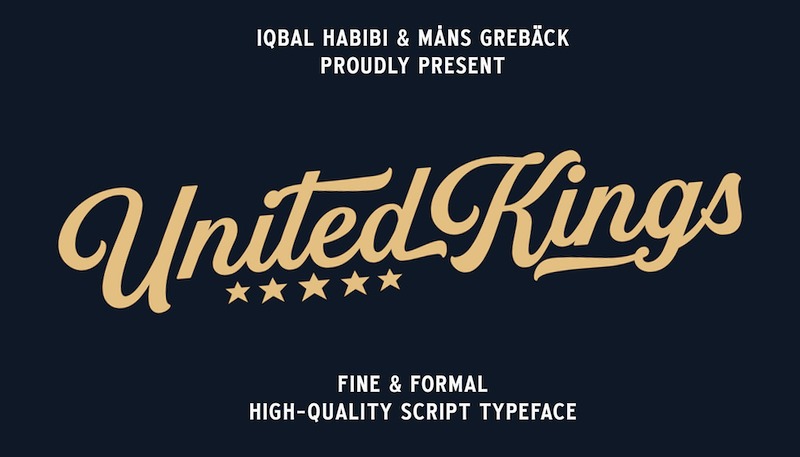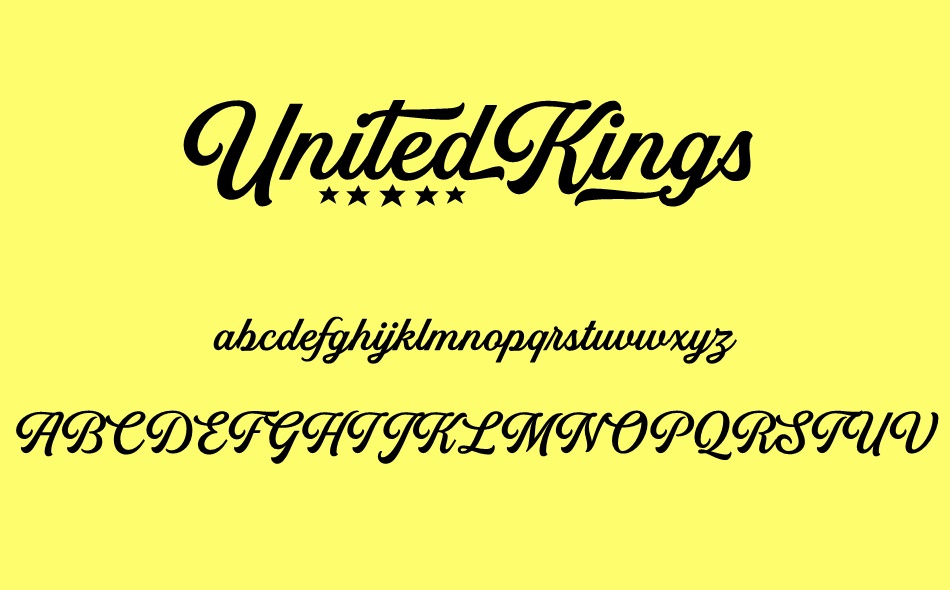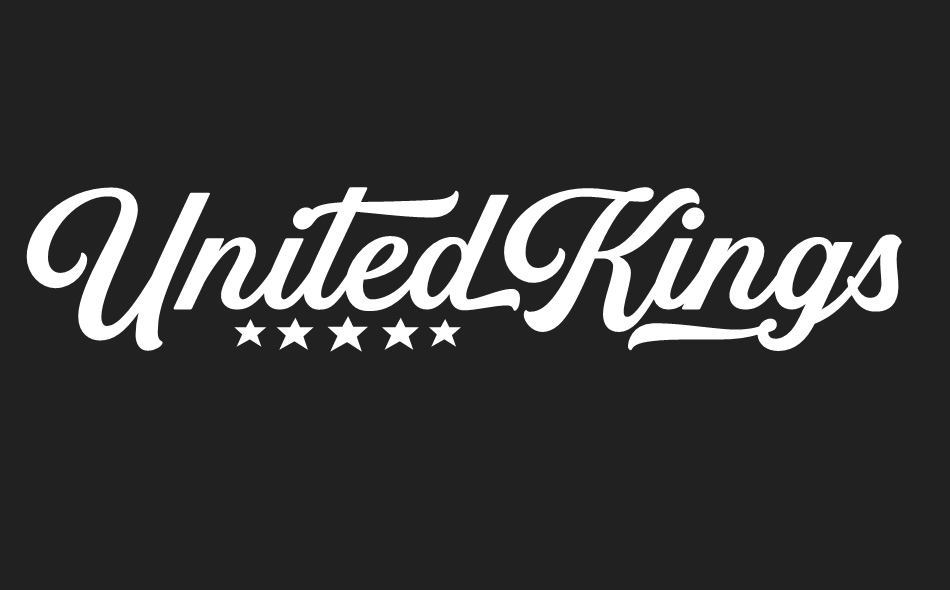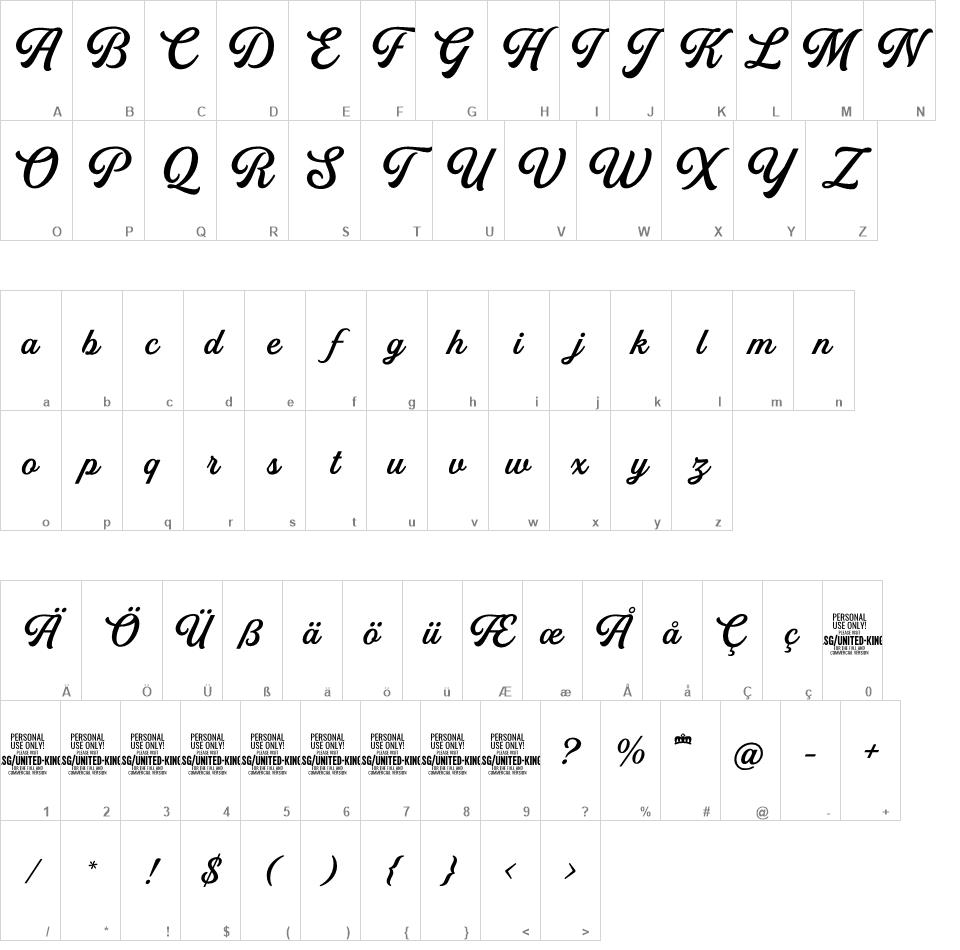
United Kings font
United Kings is a masterfully crafted formal script font that exudes an air of perfection and fine art.
The exquisite letterforms of United Kings make it a great choice for formal logotypes.
Use to make tail swashes, or multiple for longer swashes.
Example: Kingdom
Use underscores _ anywhere in a word to make an underline.
Example: Belo__ved
Use # after any letter to give it a crown.
Example: Que#en
United Kings is a masterfully crafted formal script font that exudes an air of perfection and fine art. Designed for high-end projects and showcasing genuine, authentic craftsmanship, this font brings an unparalleled sense of balance and beauty to your creative work.
The exquisite, well-crafted letterforms of United Kings make it an exceptional choice for logotypes, professional branding, and artisanal projects that require a touch of finesse and sophistication.
Use ¤ to make tail swashes, or multiple for longer swashes.
Example: Kingdom¤¤¤
Use underscores _ anywhere in a word to make an underline.
Example: Belo__ved
Use # after any letter to give it a crown.
Example: Que#en
The United Kings font family includes six elegant styles to suit various design needs:
The weights Thin, Regular and Bold, enabling your design to range from a delicate and graceful style for a refined touch, to a more bold, assertive and captivating presence for impactful designs.
In addition to the thicknesses, each style is provided as Italic.
Built with advanced OpenType functionality, United Kings ensures top-notch quality and provides you with full control and customizability. It includes stylistic and contextual alternates, ligatures, and other features to make your designs as unique and impressive as the font itself.
United Kings offers extensive lingual support, covering all Latin-based languages, from Northern Europe to South Africa, from America to South-East Asia. It contains all the characters and symbols you'll ever need, including all punctuation and numbers.